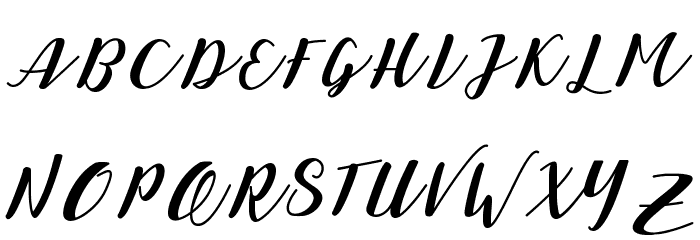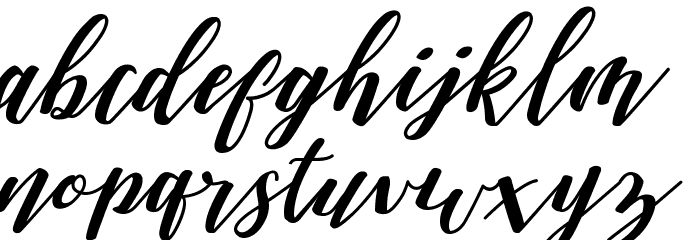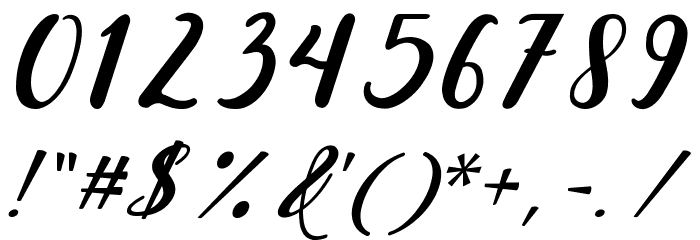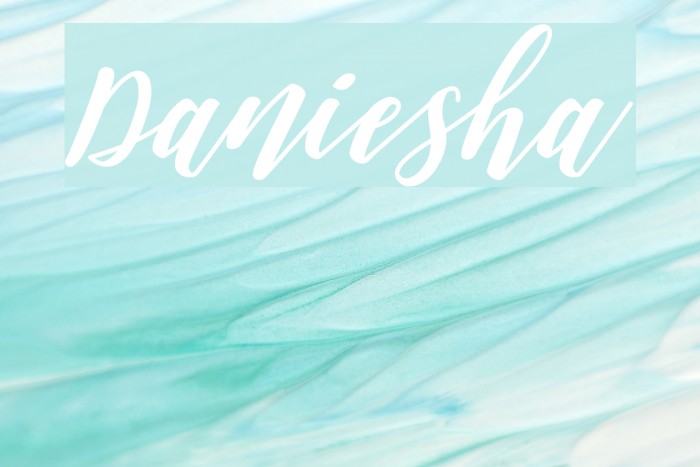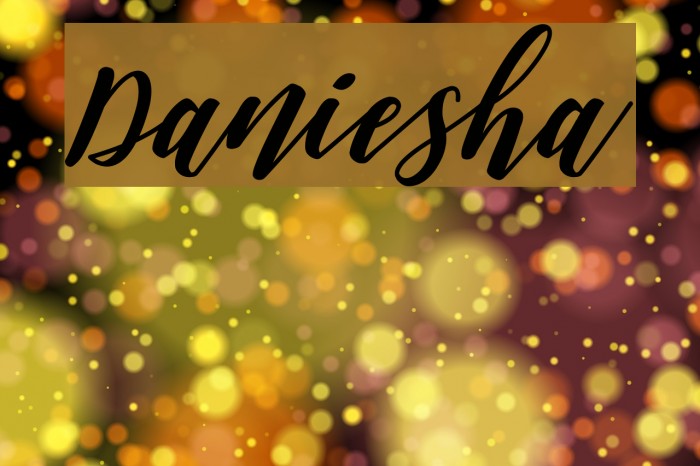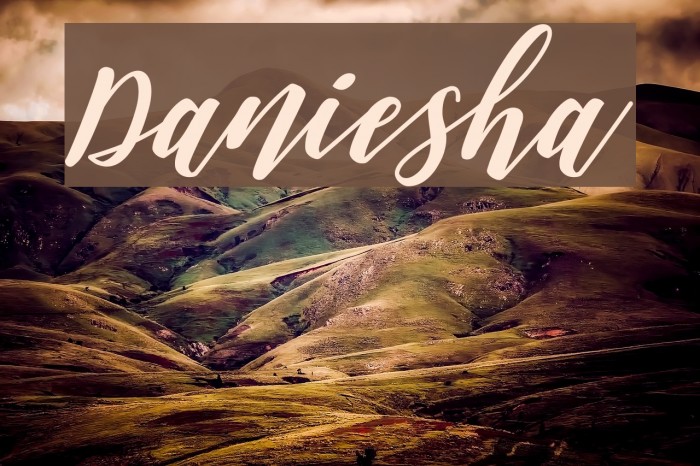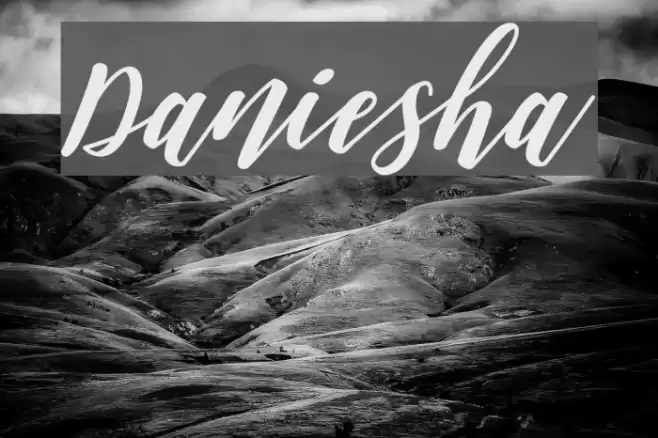
Daniesha Font
This font features a flowing, cursive style with elegant, sweeping strokes that create a sense of movement and grace. The uppercase letters are bold and expressive, with a slight slant that adds to their dynamic appearance. The lowercase letters maintain this fluidity, with smooth connections between characters that enhance readability. The numerals are consistent with the overall style, offering a harmonious blend of curves and angles. Special characters are thoughtfully designed to match the aesthetic, making this font versatile for various applications.
A flowing, cursive font with elegant, sweeping strokes and a dynamic appearance.
- Proposed Projects: Ideal for wedding invitations, greeting cards, branding, and elegant packaging designs.
- Overall Style: Elegant, Decorative
- Use Case: Logos, Invitations, Branding